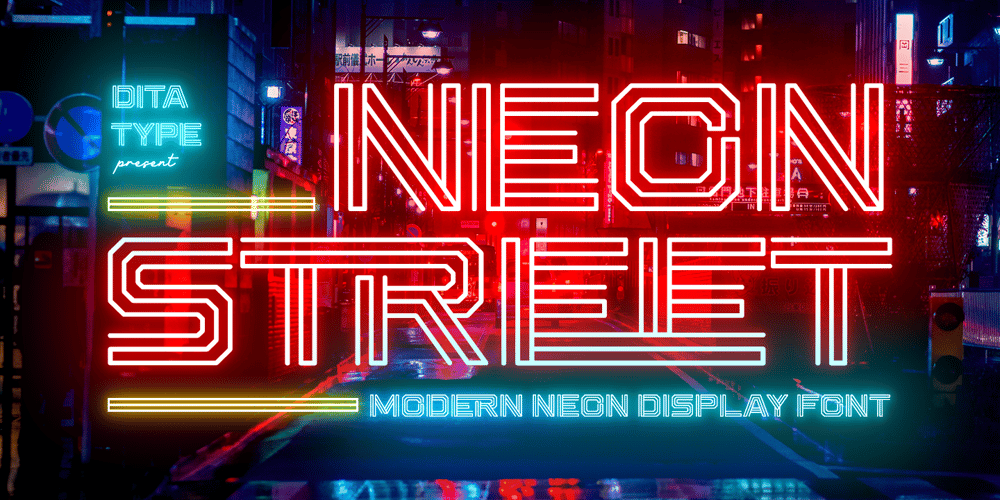
Neon Street Font Family was designed by Donis Miftahudin and published by Ditatype. Neon Street contains 1 styles and family package options. Neon Street is a captivating display font that takes inspiration from the dazzling glow of neon lights found on vibrant city streets. With its bold uppercase letterforms and neon-style inline elements, this typeface exudes energy and creates a visually stunning experience. Each letter is meticulously crafted with neon-inspired strokes that run through the center, adding a dynamic and luminous effect. This inline style brings a sense of urban excitement and nostalgia, evoking the vibrant atmosphere of neon-lit cityscapes.Inspired by the enchanting allure of neon signs, Neon Street infuses a sense of liveliness and modernity into each character. The font captures the captivating glow of neon lights, casting a radiant and vibrant hue that is both eye-catching and mesmerizing. This neon style adds a touch of urban energy, making the font truly stand out with its electrifying charm. The uppercase letter forms of Neon Street are bold and assertive, commanding attention with their distinctive design. Enjoy the various features available in this font.Features: Alternates Multilingual Supports PUA Encoded Numerals and Punctuations Neon Street is perfect for headlines, signage, logos, and any design that aims to make a bold statement with a touch of neon-inspired flair. This font will also inject your project with a vibrant and captivating element, whether you’re creating posters, branding materials, digital artwork, or anything in between. Find out more ways to use this font by taking a look at the font preview.Thanks for purchasing our fonts. Hopefully, you have a great time using our font. Feel free to contact us anytime for further information or when you have trouble with the font. Thanks a lot and happy designing.